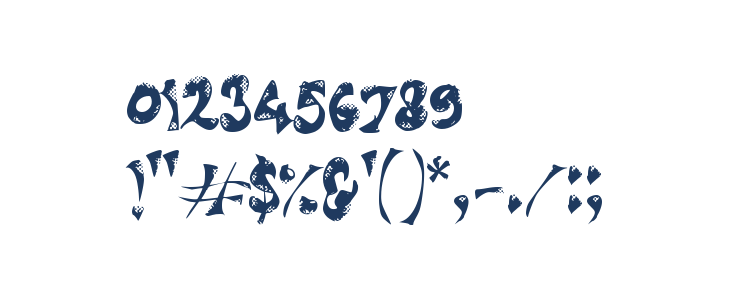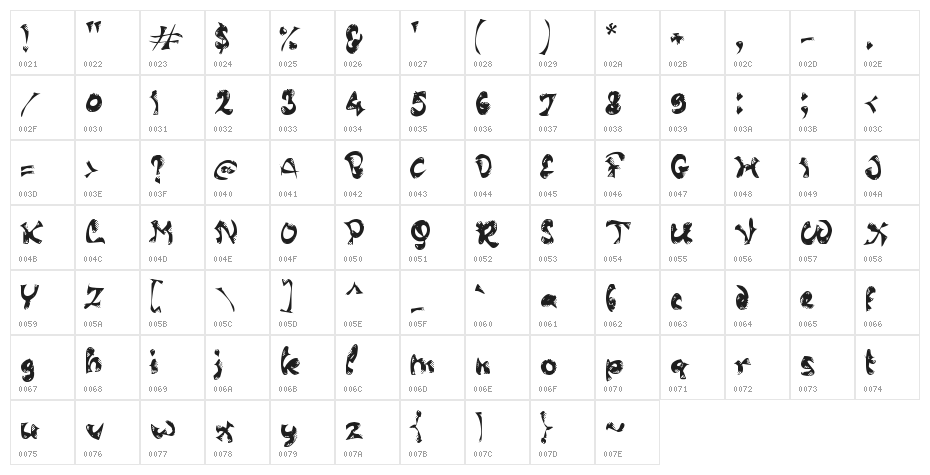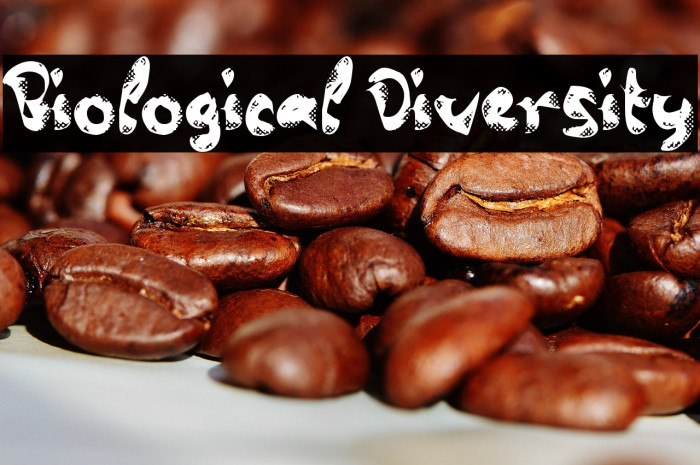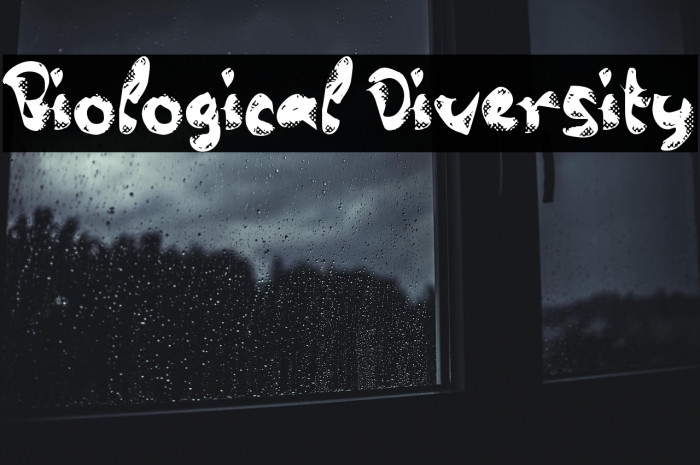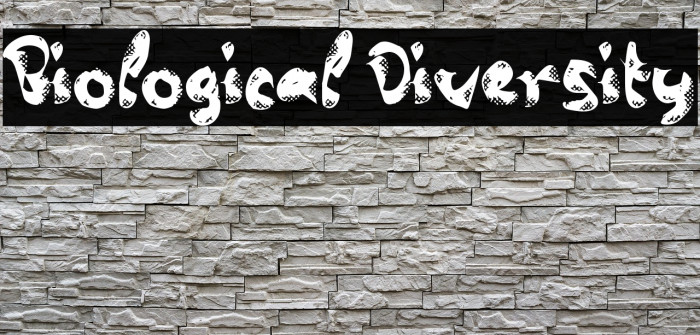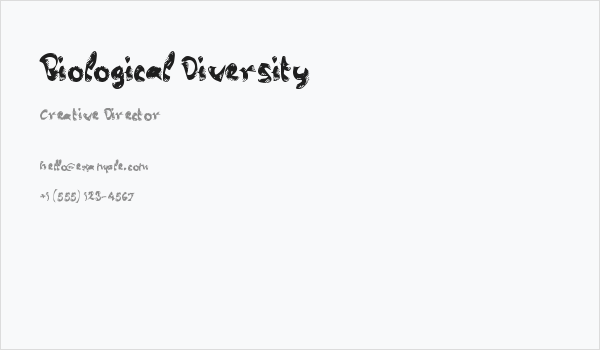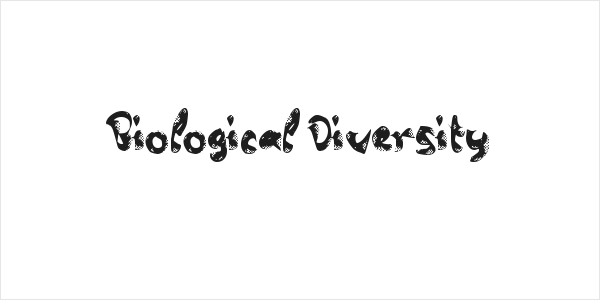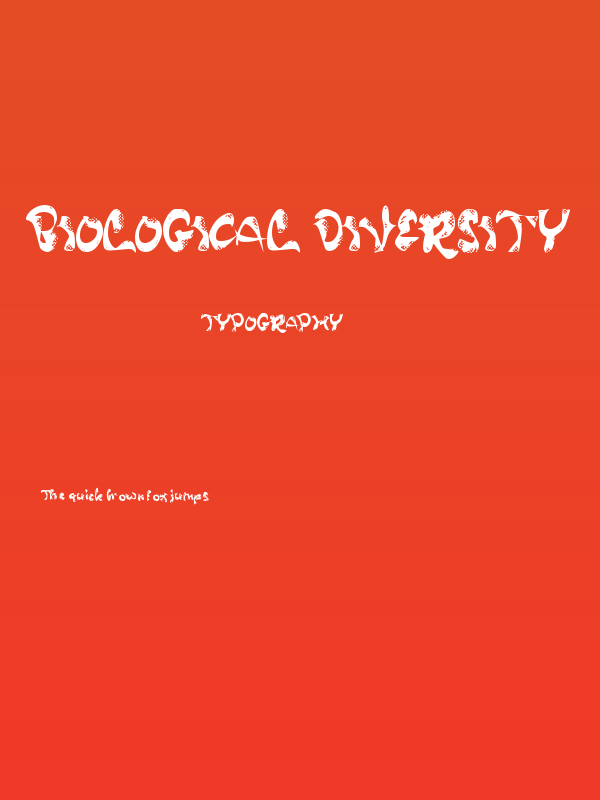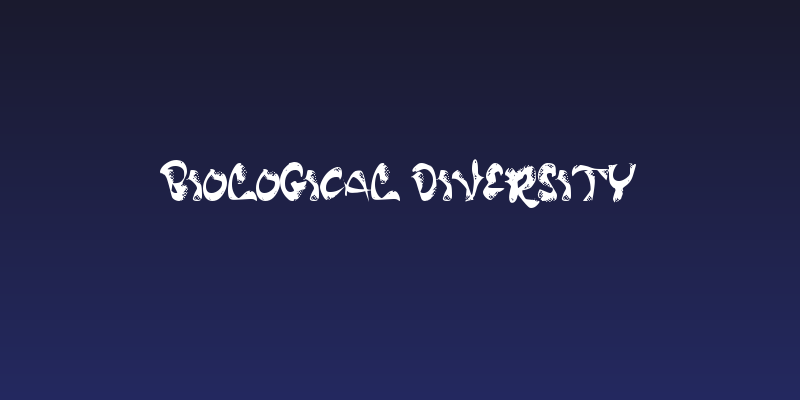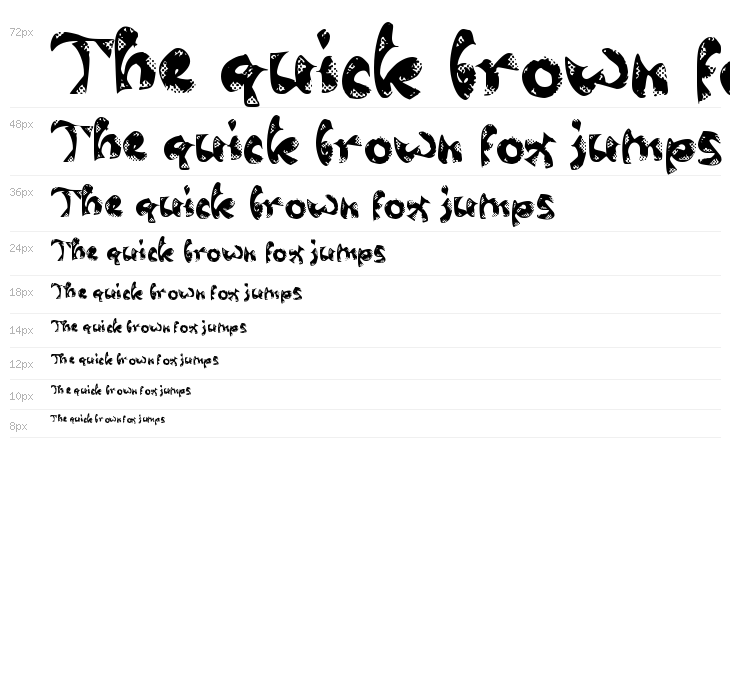
Biological Diversity Font
Biological Diversity Description
This font features a bold and dynamic style with a unique, textured appearance. The characters are designed with a playful and artistic flair, incorporating irregular shapes and patterns that give it a distinctive, eye-catching look. The uppercase and lowercase letters maintain a consistent design theme, with each character exhibiting a sense of movement and energy. The numbers and special characters follow the same aesthetic, ensuring a cohesive visual experience. This font is ideal for projects that require a bold statement and a creative touch.